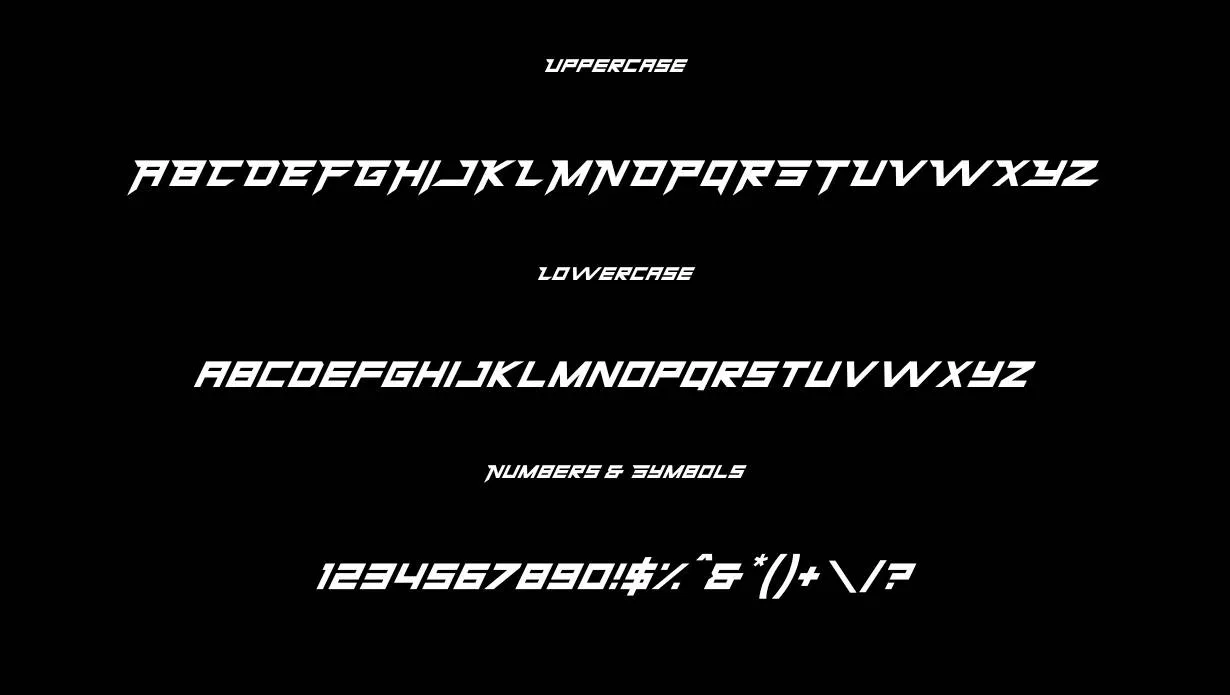
Hermes Font exudes sophistication and elegance. Its refined and stylish letters bring a sense of class and grace to any text. This font typically comes in TTF and OTF file formats, ensuring usability across different platforms. It’s frequently used in high-end branding or editorial designs, evoking a feeling of luxury and prestige.
| Name | Hermes Font |
| Designer | Tagir Safayev |